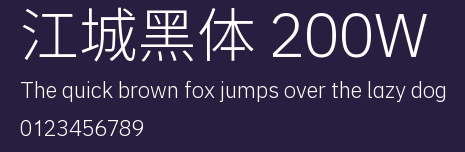
江城黑体 200W Preview
• Font Name: 江城黑体 200W
• Font ID: JiangChengHeiTi-200W;Version 2.1
• Full Font Name: 江城黑体 200W
• Version: Version 2.1 2021/10/28
• PostScript Name: JiangChengHeiTi-200W
• Character Count: 30890
• Designer: LiuPeng
• Description: Dr. Ken Lunde (project architect, glyph set definition & overall production); Masataka HATTORI 服部正貴 (production & ideograph elements)
About 江城黑体 200W.ttf
江城黑体 200W.ttf is a modern, elegant sans-serif font designed for ultimate readability and visual harmony. Perfect for branding, headlines, web design, and print materials.